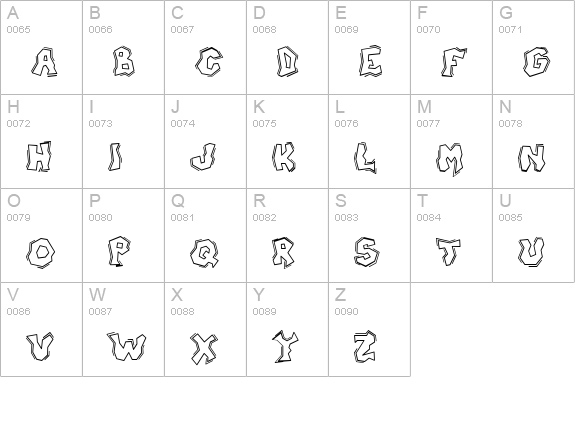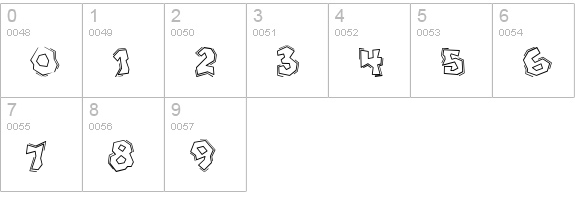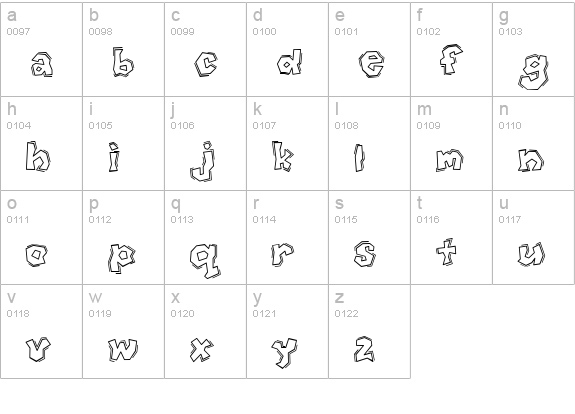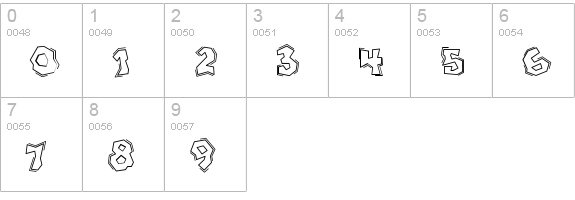
CK Choppy Block Font Details
Introducing the CK Choppy Block font – a unique and eye-catching typeface that exudes modernity and creativity. This font features a bold and choppy design, making it perfect for making a statement in your projects. The CK Choppy Block font is versatile and can be used for various purposes, from branding to headlines to posters. The best part? This fantastic font is available for free download at FontsMarket.com. Don't miss the opportunity to add this striking typeface to your collection and elevate your designs with its distinctive style. Embrace the boldness of CK Choppy Block and make your projects stand out from the crowd.